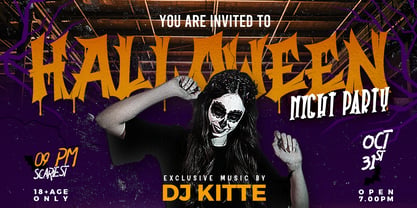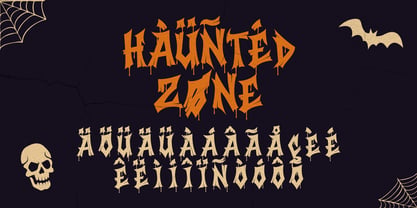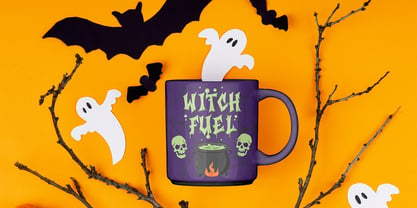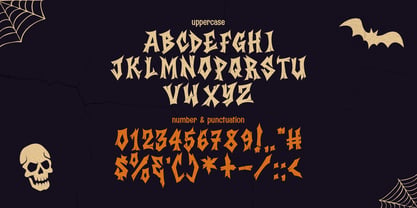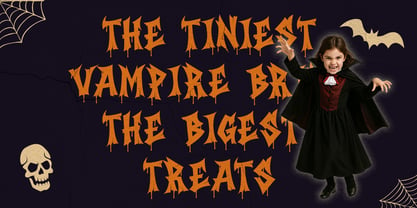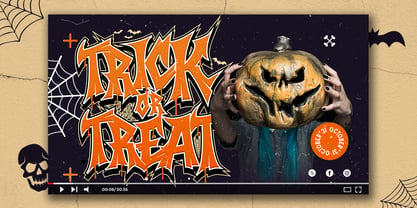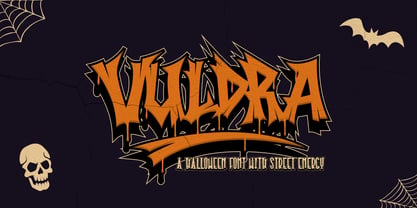
Vuldra
Vuldra is a Halloween graffiti creation that blends spooky atmosphere with raw urban street energy. It has been carefully designed for designers who want to bring a mix of eerie horror vibes and authentic graffiti culture into their projects. Unlike ordinary seasonal designs, Vuldra offers more depth and personality thanks to its dual styles and textural details. You get two expressive styles: Regular/Clean for sharp readability, and Dripping for untamed, wild effects that immediately evoke haunted nights, scary visuals, and dripping paint across urban walls.
The standout feature that elevates Vuldra beyond generic Halloween resources is its wild graffiti strokes enhanced with wood texture effects. This unique detail adds organic realism, making every letter feel raw, gritty, and tactile. It looks as if the characters were painted or carved into rough surfaces, perfectly fitting for projects that need authenticity and edge.
Vuldra is not limited to Halloween alone. While it shines in spooky seasonal campaigns, it also works as a versatile graffiti style for year-round design. Streetwear apparel brands can use it on t-shirts, hoodies, and merchandise. Event organizers can apply it to party flyers, posters, and banners. Digital designers can leverage it for YouTube thumbnails, social media posts, and website headers that need maximum impact. The dripping version gives that instant horror punch, while the clean version works beautifully for bold urban branding.
Why Designers Choose Vuldra
• Two distinct styles: Regular/Clean and Dripping
• Unique wild graffiti with wood texture for added dimension
• Bold and legible, yet raw and expressive
• Excellent for both print and digital media
• Perfect for Halloween, horror, and street culture themes
Use Cases
• Apparel & Merch: T-shirts, hoodies, streetwear, skate designs
• Branding: edgy logos, product packaging, promotions
• Print: posters, book covers, event flyers
• Digital: website banners, online ads, YouTube covers, social media graphics
• Seasonal: Halloween campaigns, spooky party branding, horror-related products
Style & Mood
The dripping style brings to mind haunted houses, creepy cemeteries, blood-dripping horror posters, and fresh graffiti paint still running on walls. The regular style balances it with clarity, making the font usable for logos, headlines, and professional branding while still keeping its strong personality. The wood texture finish is what ties it all together — adding a tactile realism that makes it stand out in today’s design landscape.
Final Thoughts
Vuldra is a bold statement piece. It’s more than just another seasonal lettering option — it’s a design resource that combines Halloween chills with graffiti thrills. If your goal is to create something unforgettable, full of energy, edgy, and unique, Vuldra is the perfect tool. Whether for spooky events or modern streetwear, this creation ensures your work will demand attention and leave a lasting impression.